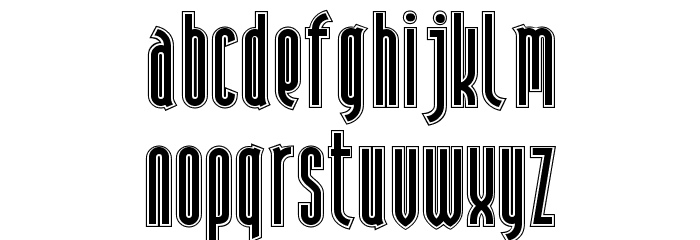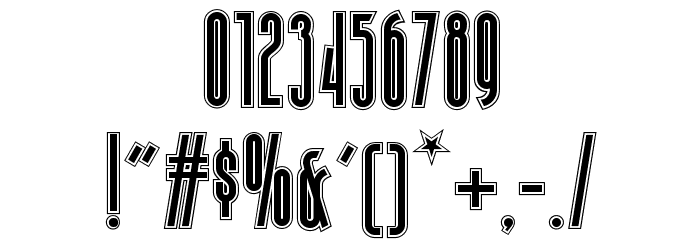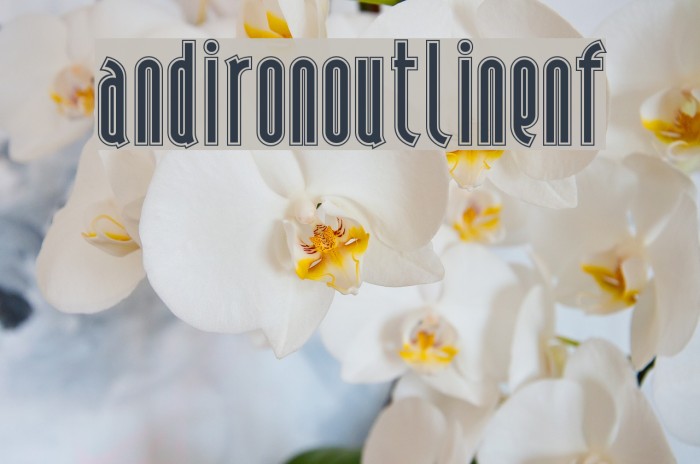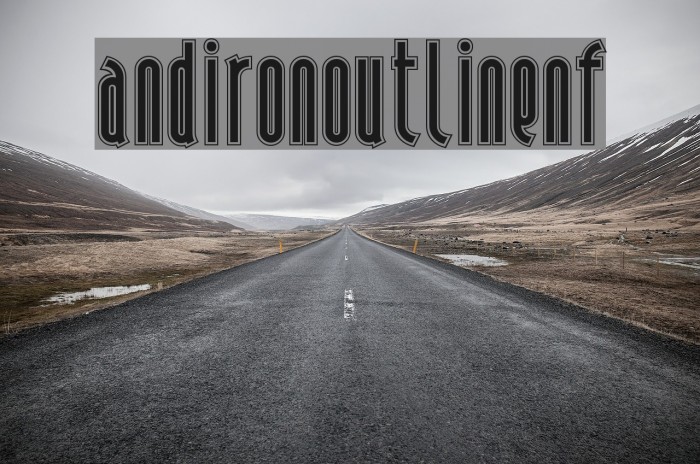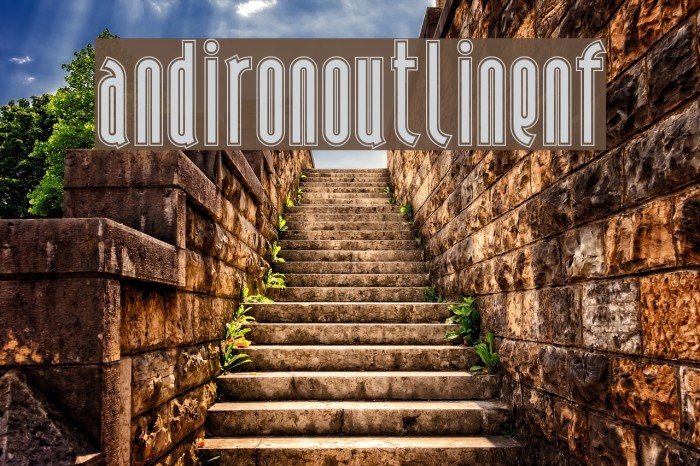
AndironOutlineNF Font
This font features a bold, outlined style with a strong presence, making it ideal for attention-grabbing designs. The characters are tall and narrow, with a distinct outline that adds depth and dimension. The uppercase and lowercase letters maintain a consistent height, while the numerals and special characters complement the overall aesthetic. The font's geometric structure and clean lines give it a modern yet slightly retro feel, suitable for various creative applications.
A bold, outlined font with a modern, geometric style.
- Proposed Projects: Ideal for posters, headlines, logos, and branding materials that require a striking and memorable appearance.